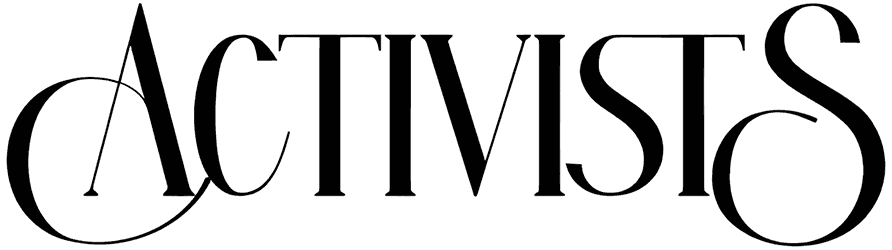
Activists Font
Activists are a timeless classic that exudes an atmosphere of elegance and sophistication. With its two styles of capital letters, this serif font gives a sense of permanence to any design or writing and adds harmony and balance to the collection.
Activists’ simple and versatile appearance has made it offer endless possibilities for creative expression, even without lowercase letters. So why settle for boring letters when you can enhance your poster, book cover, or website with the endless beauty of serifs?